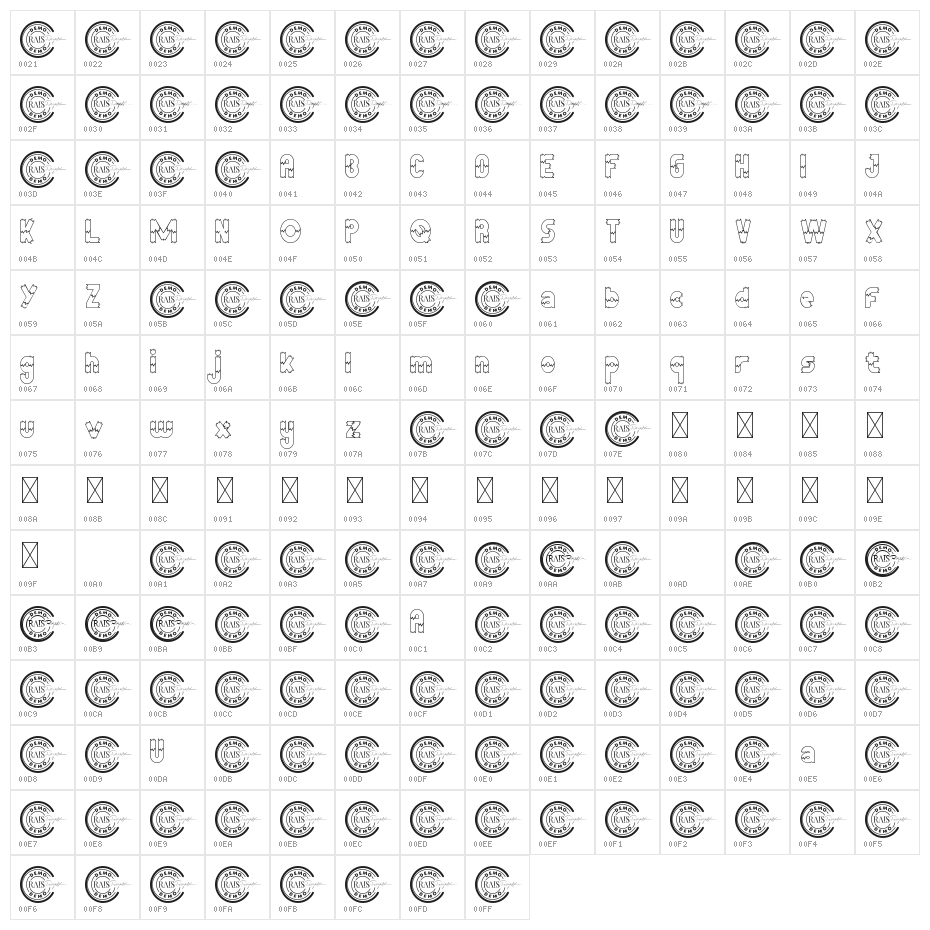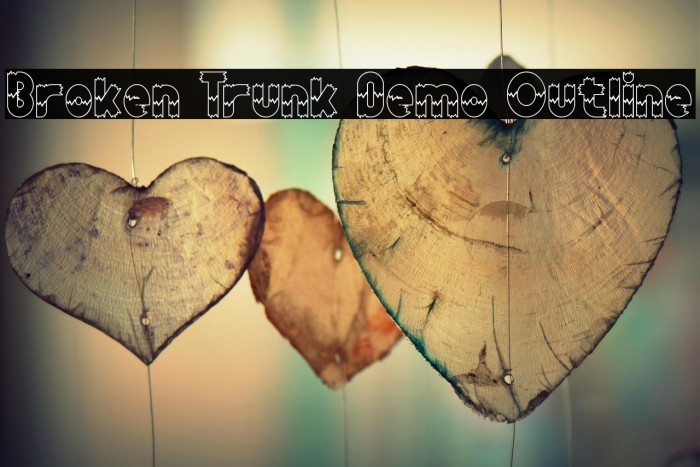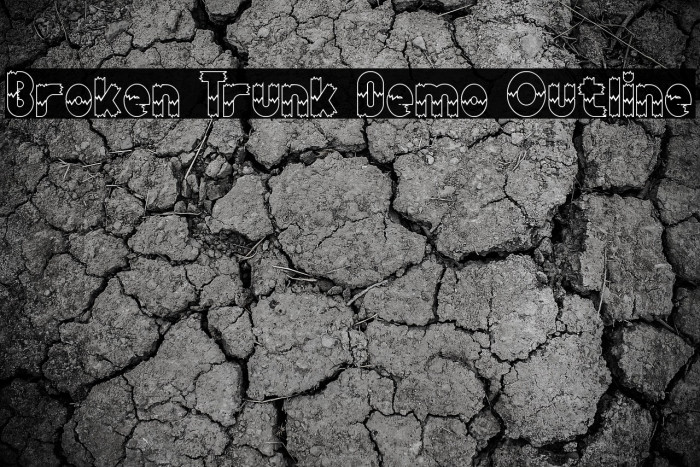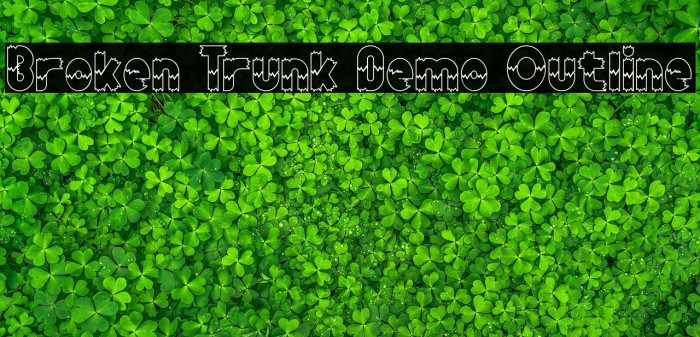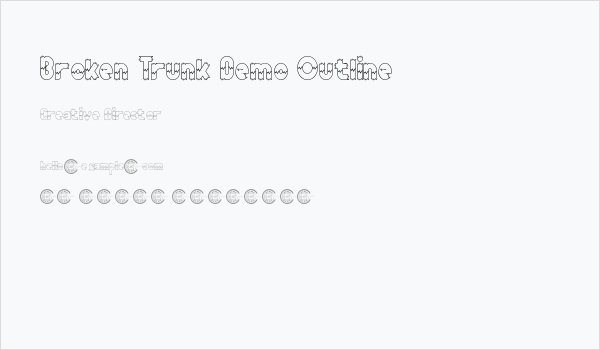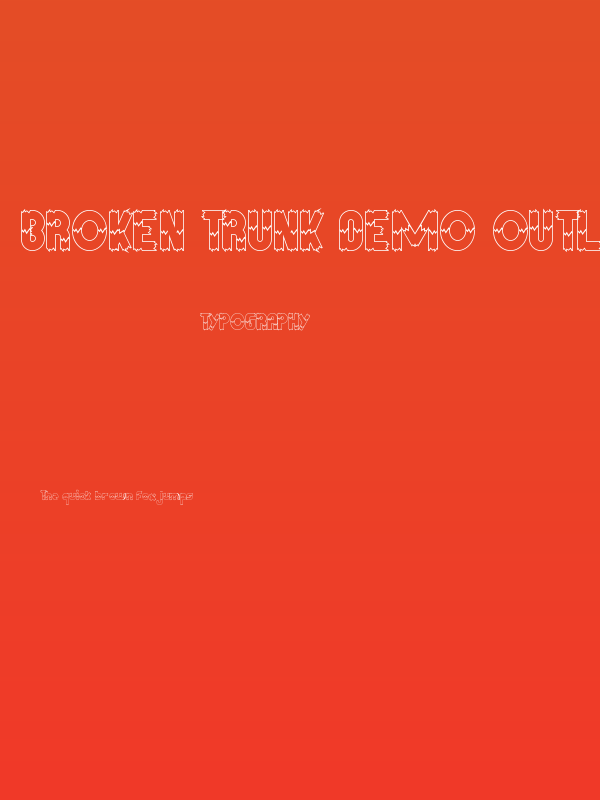
Broken Trunk Demo Outline Font
Broken Trunk Demo Outline Description
This font features a unique and playful design with an outline style that gives the impression of being carved or broken, adding a rugged and dynamic feel. The uppercase and lowercase letters maintain a consistent jagged edge, creating a cohesive look throughout the alphabet. The numbers and special characters follow the same design principle, ensuring uniformity. This font's distinct style makes it stand out, suitable for creative and bold projects. The outline nature allows for versatility in layering and color customization, making it adaptable for various design needs.
| Proposed Projects | Ideal for posters, logos, children's book covers, and any project requiring a bold, creative touch. |